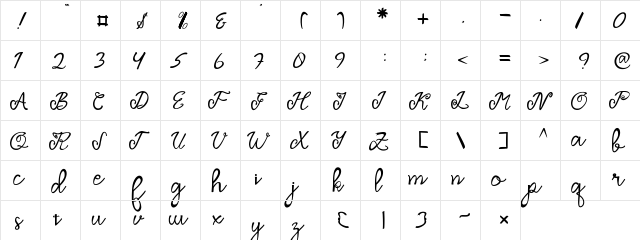
Dragonfly Script Regular
Design Context for Dragonfly Script Typeface
Dragonfly Script brings a calligraphic fluidity to the page — its connecting strokes and expressive curves give it an unmistakably human quality.
Font Pairing: Combine Dragonfly Script with a simple geometric sans for maximum contrast — the tension between flowing curves and clean structure is a classic typographic pairing.
Pro Tip: Use Dragonfly Script for short runs of text — names, titles, or taglines. Extended body copy in script faces tires the eye quickly.